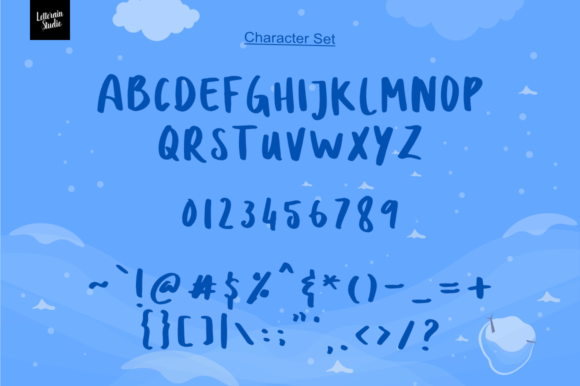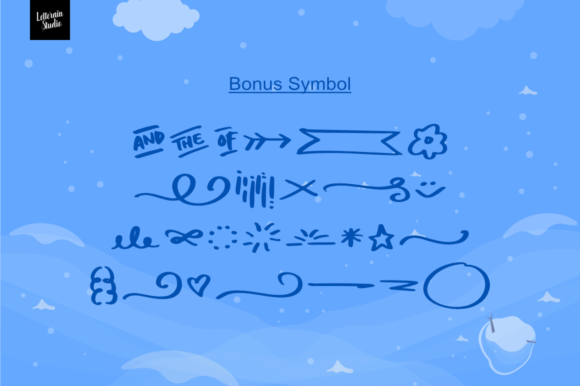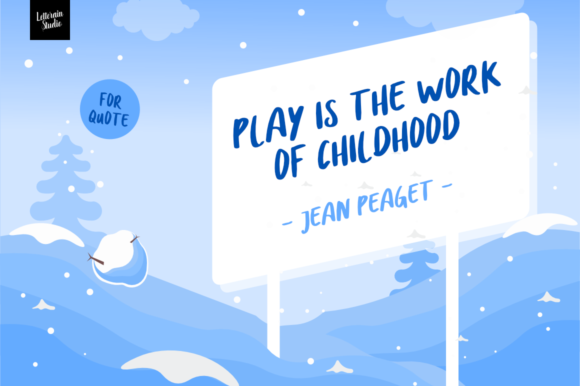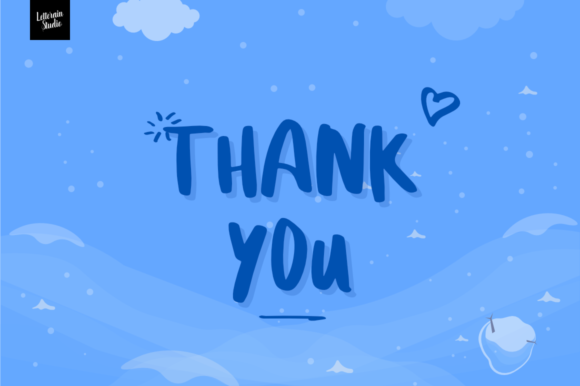
Dolanan Font
About Dolanan Font
Dolanan is a cute, light and playful handwritten font with an undeniably adorable feel. Get inspired by its authentic twist.